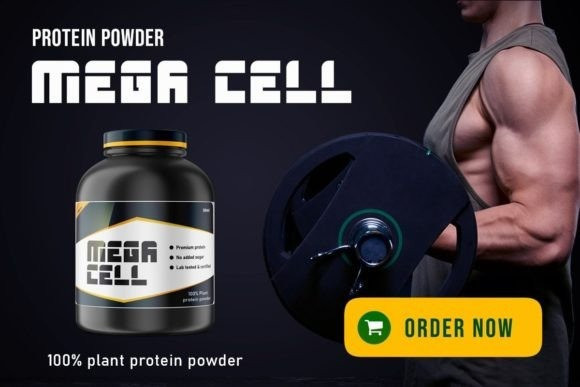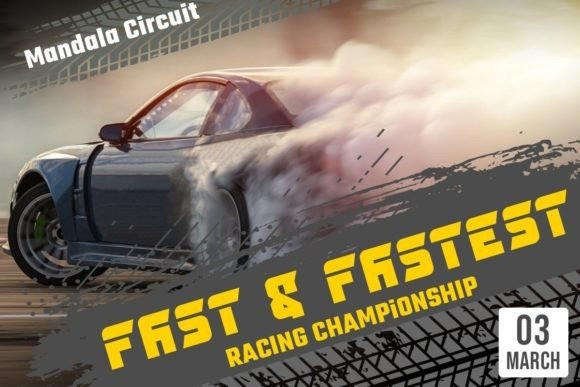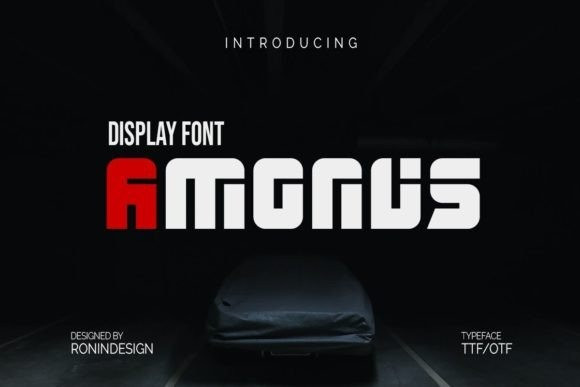
Amonus Font
Amonus Font is a modern and simple display font perfect for logos, labels, posters, and any creative project which requires a unique touch. Add it to your fonts library, and it will become your favorite in no time at all!